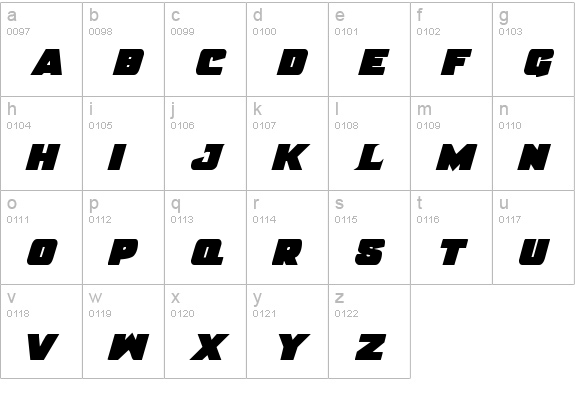
Justice Solid font is a modern and bold typeface designed to convey a sense of strength and authority. With its clean lines and solid appearance, this font is perfect for making a statement in your designs. The Justice Solid font is versatile and can be used in a variety of projects, from branding to editorial design. One of the best things about Justice Solid font is that it is free to download at FontsMarket.com. This means that you can easily access this powerful and impactful font without any cost. Whether you are a designer looking to add a touch of sophistication to your work or a business owner wanting to create a strong visual identity, Justice Solid font is a fantastic choice that won't break the bank. Make sure to download it today and elevate your designs with this impressive typeface.